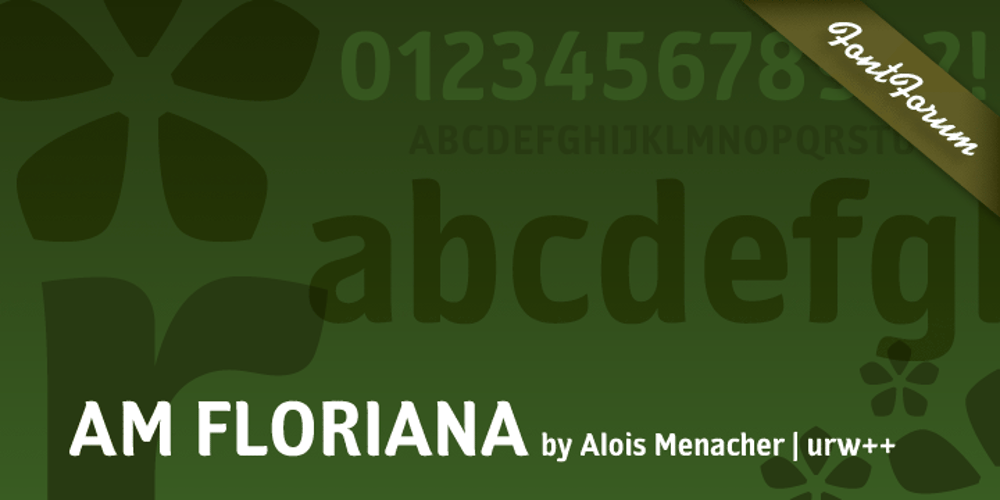
AM Floriana
AM Floriana font
AM Floriana Font Family was designed by Alois Menacher and published by URW Type Foundry. AM Floriana contains 3 styles and family package options. The origin of AM Floriana is already several decades ago. At a time when there was no photo set and the choice of metal type fonts was still very manageable, Alois Menacher received an order to design a custom business logo from a flower shop. He then created a hand-drawn lettering based on the form of leaves and plants. Now Alois Menacher professionally designed and developed AM Floriana on the basis of this lettering. AM Floriana is ideally suited for packaging design, as well as for display design and logo design. AM Floriana is available as a Bold version and will soon be complemented by further cuts.